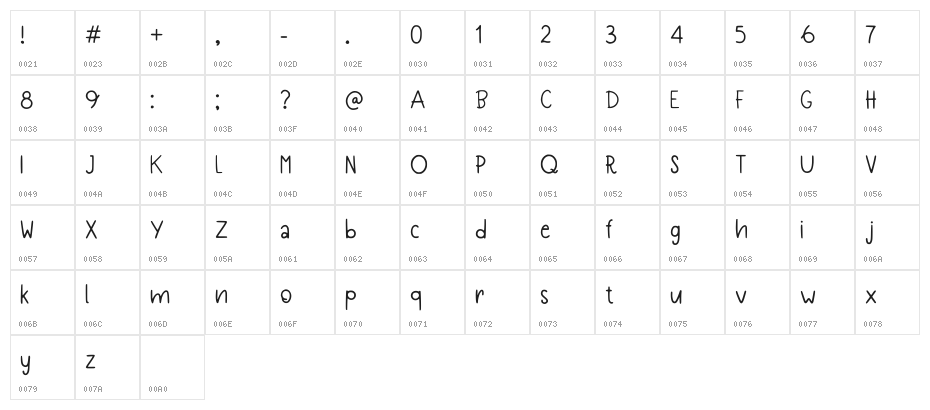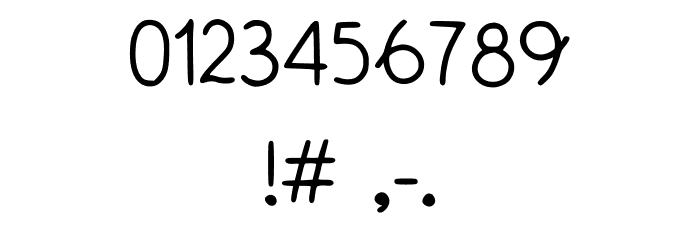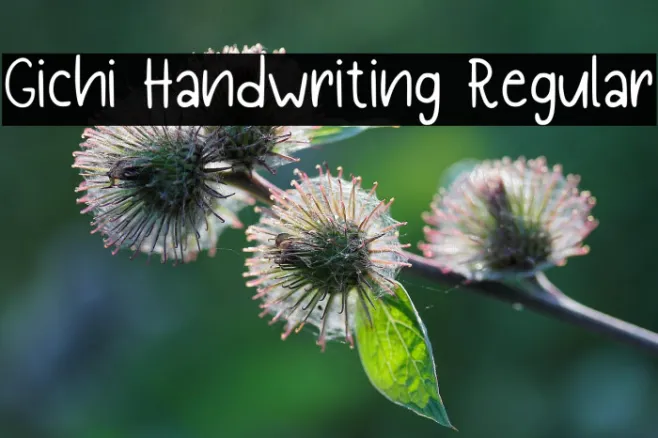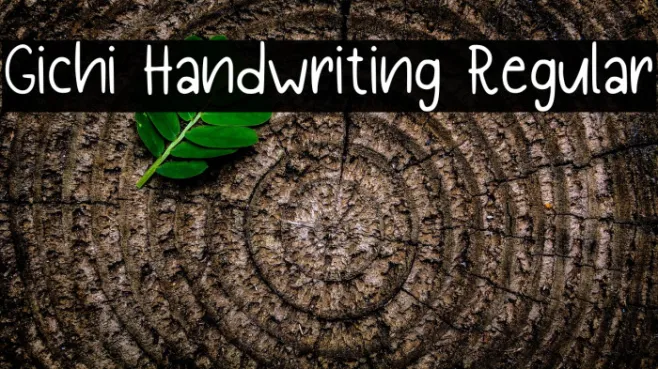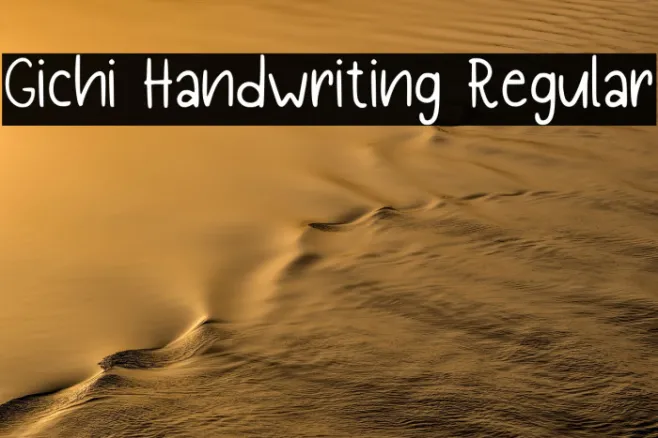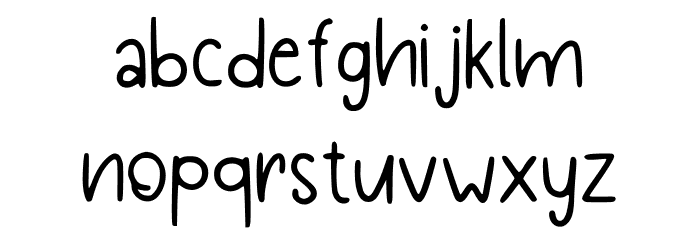
Gichi Handwriting Regular Font
Gichi Handwriting Regular Description
This font exudes a playful and informal vibe, characterized by its handwritten style that mimics casual penmanship. The letters are slightly irregular, adding a personal touch that feels both approachable and friendly. Each character is distinct, with rounded edges and a consistent stroke width that maintains readability. The numerals and special characters follow the same playful aesthetic, making the font versatile for various creative projects. Its simplicity and charm make it suitable for designs that require a human touch, such as personal invitations, greeting cards, or children's book illustrations.
| Proposed Projects | Ideal for personal invitations, greeting cards, children's books, and casual branding projects. |